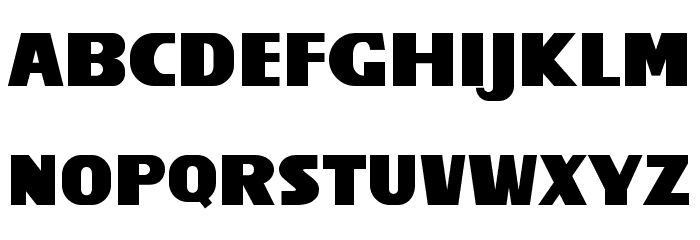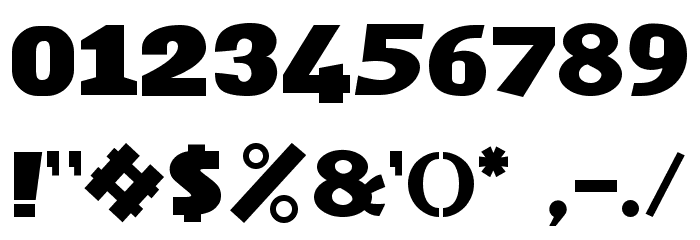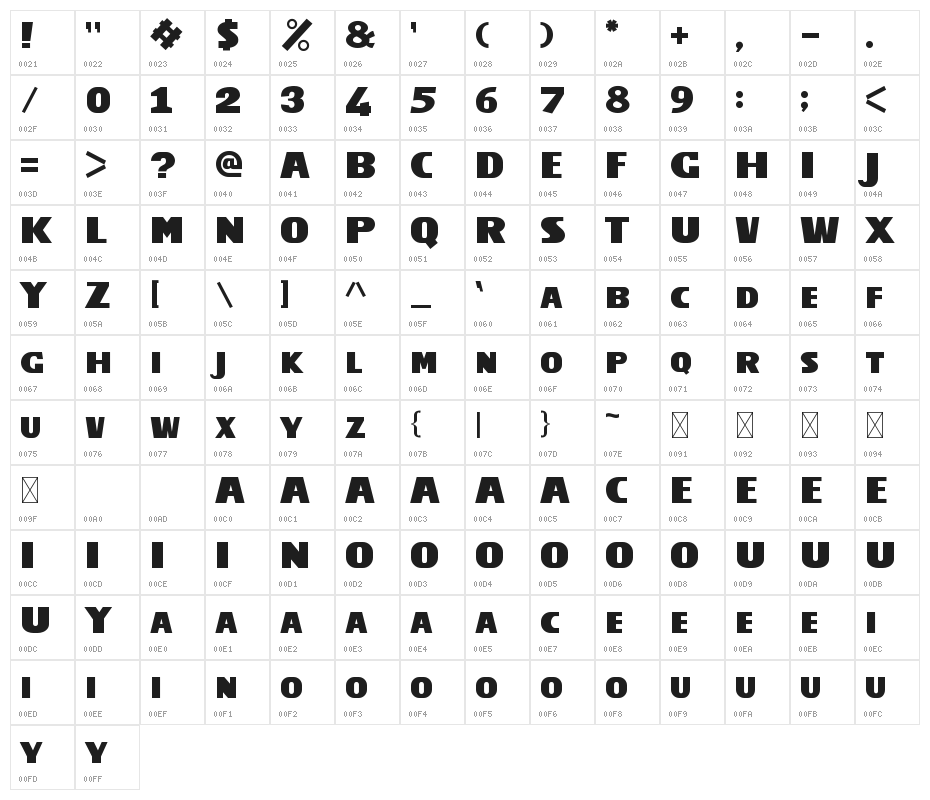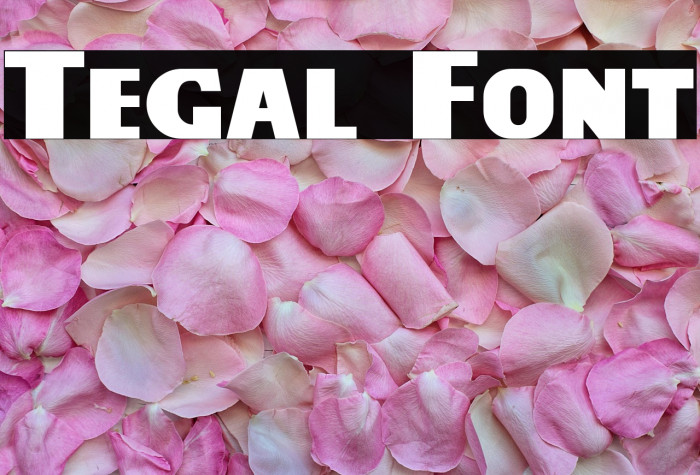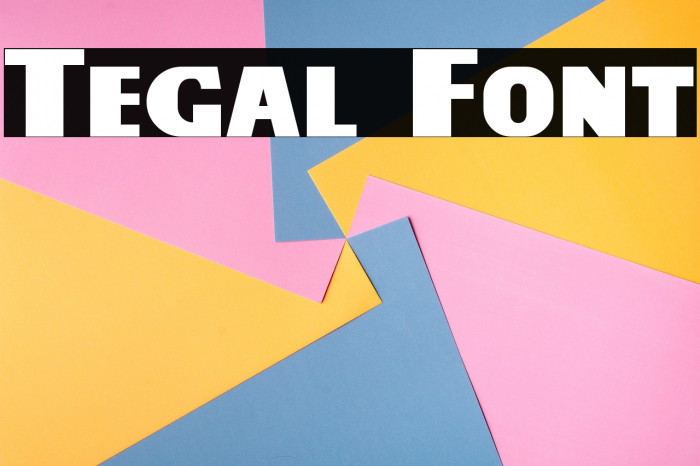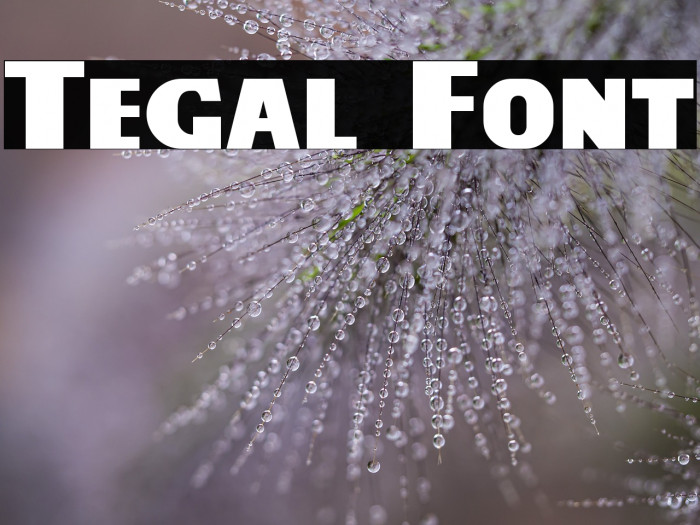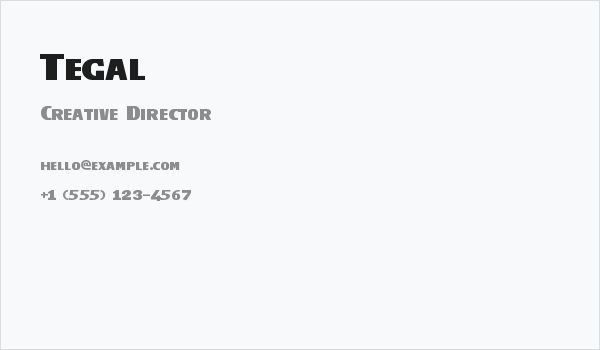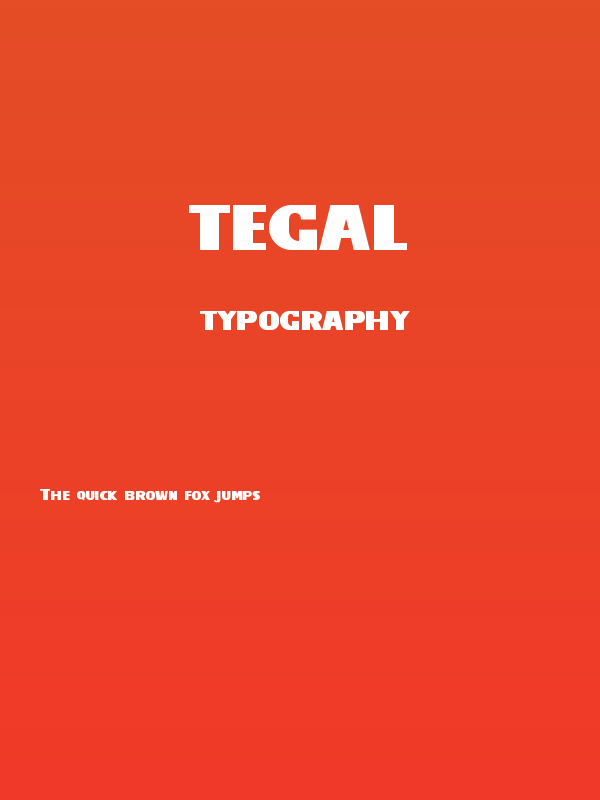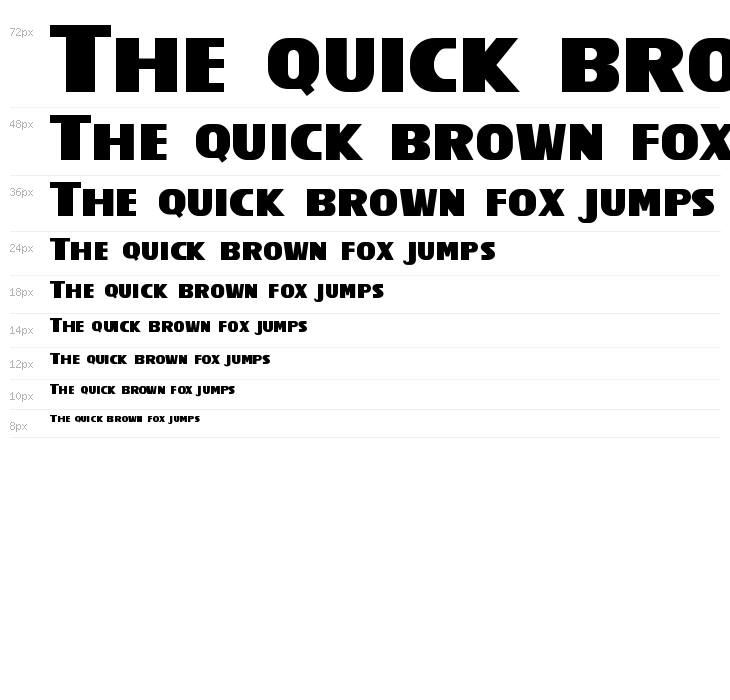
Tegal Font
This bold and impactful font features strong, thick strokes with a modern and assertive presence. The uppercase letters are uniform in height, creating a cohesive and powerful look. The numbers and special characters maintain the same boldness, ensuring consistency across all characters. The font's design is straightforward yet commanding, making it ideal for attention-grabbing headlines and statements. Its geometric shapes and clean lines contribute to a contemporary aesthetic, while the lack of serifs adds to its modern appeal.
A bold, modern font with strong, thick strokes and a commanding presence.
- Proposed Projects: Ideal for headlines, posters, branding, and advertising where a strong visual impact is needed.